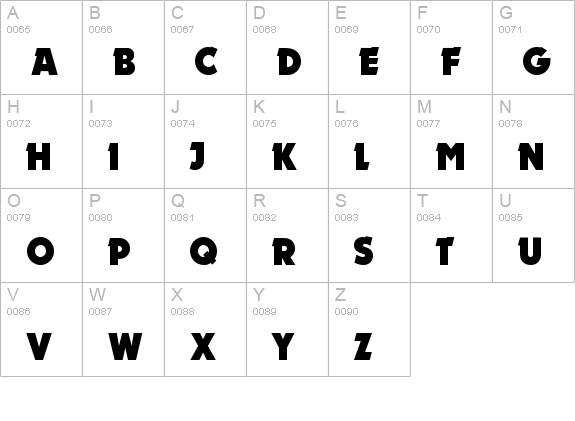
Dynamo MN Bold is a strong, high-contrast variant in the Dynamo typeface family \xE2\x80\x94 well suited to headlines, attention-grabbing titles, and strong calls-to-action.
Dynamo MN Bold is a striking and modern typeface that exudes strength and confidence. Its bold, geometric design makes it perfect for headlines, titles, and other attention-grabbing text. The sturdy letterforms and clean lines of Dynamo MN Bold give it a sleek and professional look that is sure to make your designs stand out. Best of all, Dynamo MN Bold is available for free download at FontsMarket.com. This means that you can easily add this versatile font to your collection without any cost. Whether you're a designer looking to elevate your projects or a creative enthusiast experimenting with new typography, Dynamo MN Bold is a fantastic choice that won't break the bank. Don't miss out on the opportunity to enhance your work with this impressive font - download Dynamo MN Bold for free today!